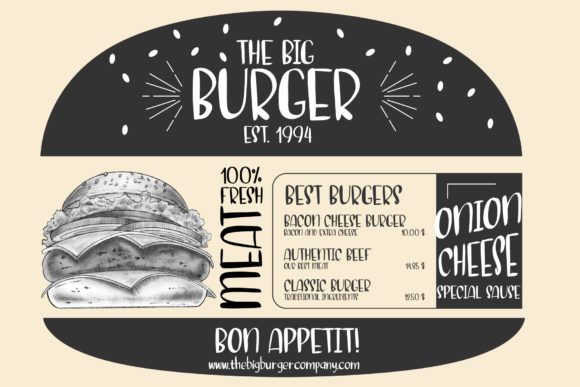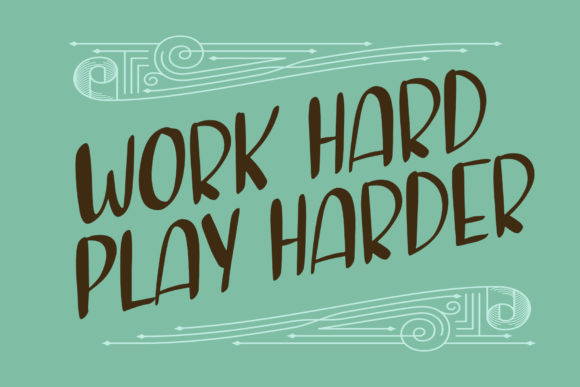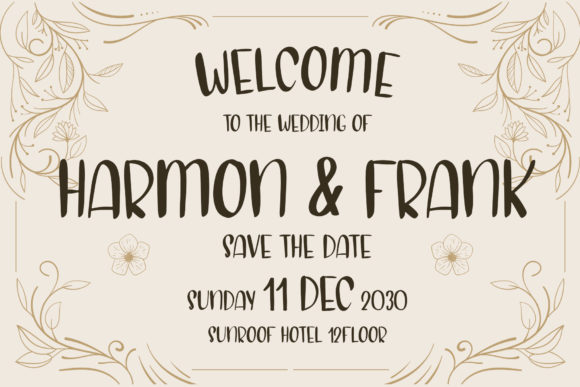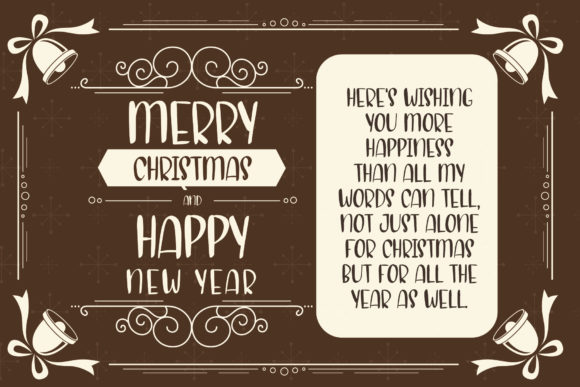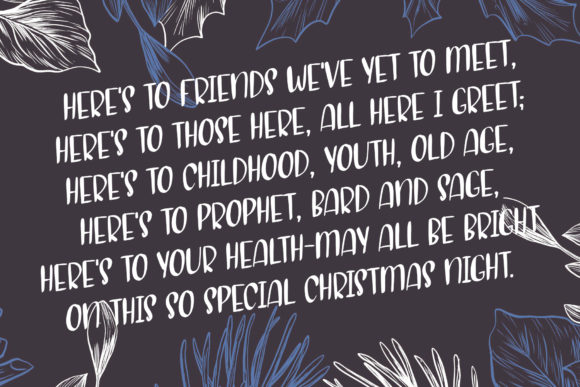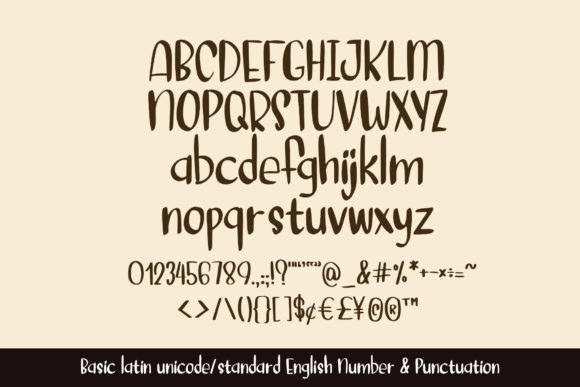
Introduction to Shaibel Font
Do you remember that moment when you stumbled upon the perfect font that made your design project come alive? For designers, finding the right font can be a game-changer. It’s the difference between a mediocre design and a truly stunning one. And, we’re excited to introduce you to one such font – the Shaibel Font.
This fun and stylish handwritten font is a design resource that’s sure to elevate your creative project. With its high-quality design and transparent background, it’s perfect for branding, product packaging, invitations, quotes, and more. Whether you’re a seasoned designer or just starting out, the Shaibel Font is an excellent addition to your design arsenal. And the best part? It’s available for free download, making it an accessible resource for designers of all levels.
Key Features of Shaibel Font
- High-quality design resource with a unique, modern aesthetic
- Features a transparent background, making it ideal for creative projects that require a clean and minimalist look
- Includes a range of characters, including uppercase and lowercase letters, numbers, and punctuation marks
- Perfect for designers, artists, and creatives working on projects that require a stylish and modern font
Honest Review: Shaibel Font
I recently had the chance to work with the Shaibel Font and I must say, it’s been a game-changer for my design projects. As a designer, I’m always on the lookout for high-quality fonts that can elevate my creative projects and the Shaibel Font definitely delivers. The font is free to download, making it a fantastic design resource for anyone looking to add some flair to their work.
What works well is the Shaibel Font’s versatility and style. It’s perfect for a variety of creative projects, from brochures to social media graphics. The font’s modern and sleek design makes it a great choice for any project that requires a touch of sophistication. I also appreciate the fact that it comes with a transparent background, making it easy to use in a variety of design settings.
⚠️ One limitation I’ve found is that the font may not be suitable for projects that require a more traditional or classic look. However, for most modern and creative projects, the Shaibel Font is a great choice. Overall, I’m really impressed with the Shaibel Font and would highly recommend it to anyone looking for a high-quality font for their design projects.
Tips for Getting the Most Out of Shaibel Font
Use the Shaibel Font in conjunction with a transparent background to create a clean and modern design. Experiment with different font sizes and colors to add visual interest to your project.
The Shaibel Font is perfect for a variety of creative projects, including social media graphics, presentations, logos, and graphics. Its high-quality design and transparent background make it a versatile and effective design resource.
Q: Is the Shaibel Font suitable for print projects?
Yes, the Shaibel Font is designed to be high-quality and suitable for print projects. However, it’s essential to check the font’s performance at different font sizes and resolutions to ensure the best results. Additionally, you may need to adjust the font settings in your design software to optimize the font for print production.